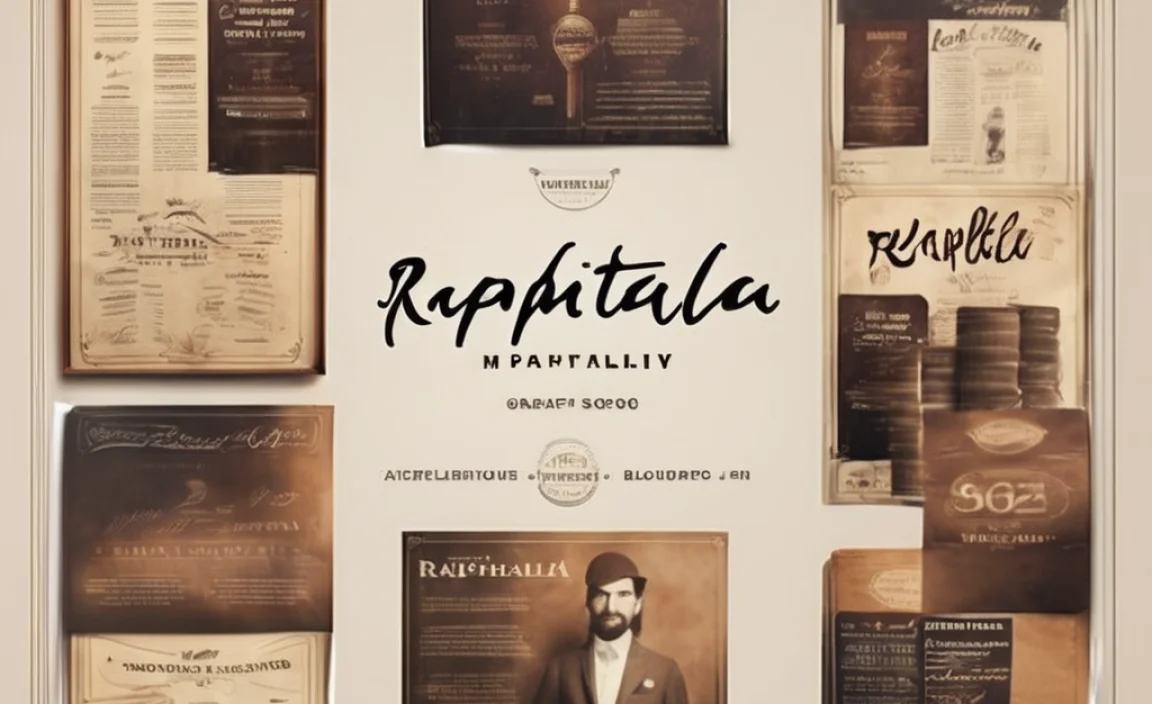
Raphtalia Font, designed by Nurf Designs, is a fun and bold script font that brings a distinct retro feel to any project. With its lovely elements and unique vintage appeal, this brush-style typeface is perfect for printed materials, branding, and creative designs. This demo font is available in 1 style and is free for personal use only.
- Handwriting-inspired script with a vintage feel
- Distinct brush strokes for a calligraphy-like appearance
| Font Type | Script, Brush |
| Designer | Nurf Designs |
| Style | Fancy, Display |
Where To Use Raphtalia Font?
This font is ideal for:
- Logos and Branding – Give your brand a stylish retro look
- Posters and Flyers – Perfect for attention-grabbing headlines
- Social Media Graphics – Enhance your Twitter, Instagram, or YouTube visuals
- Printed Materials – Ideal for greeting cards, invitation cards, and brochures
- Web Design – Works well on creative websites and display purposes
- What Makes Raphtalia Font Unique?
- It has a handwritten calligraphy style with a bold retro aesthetic.